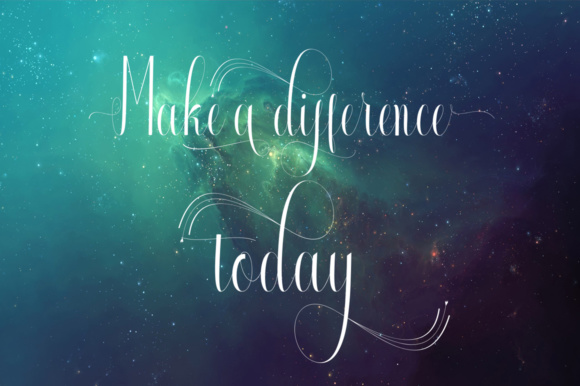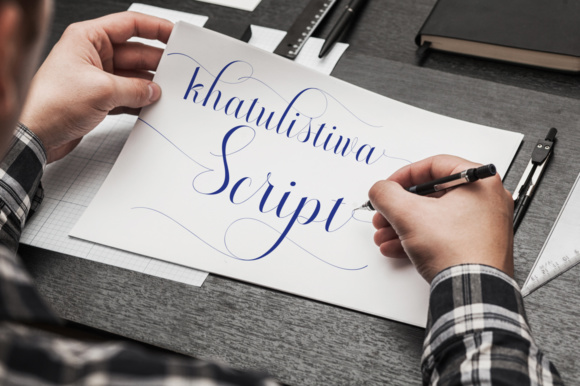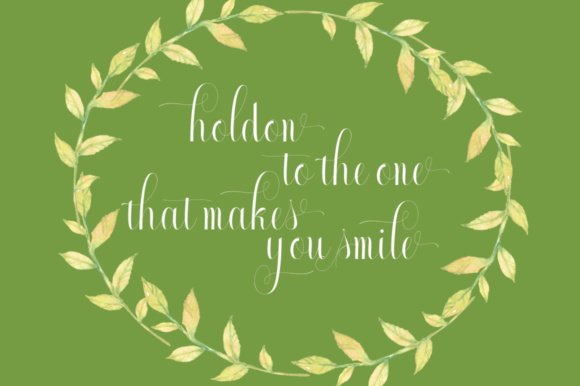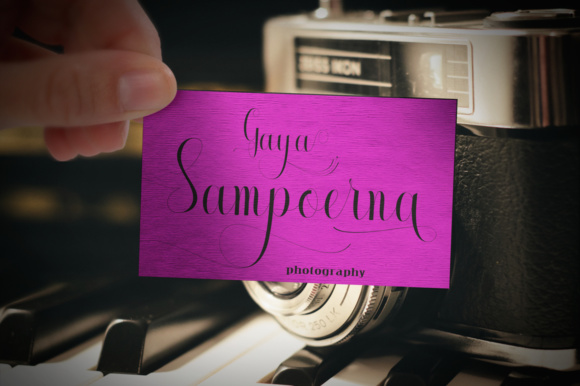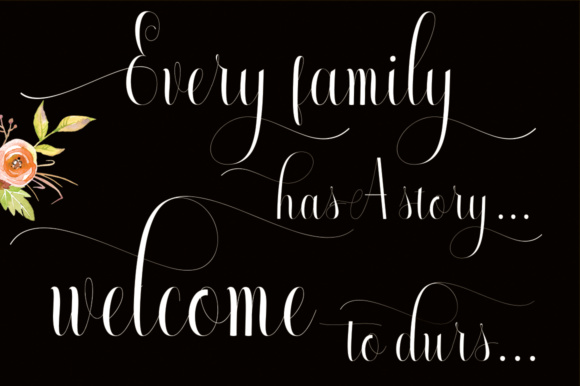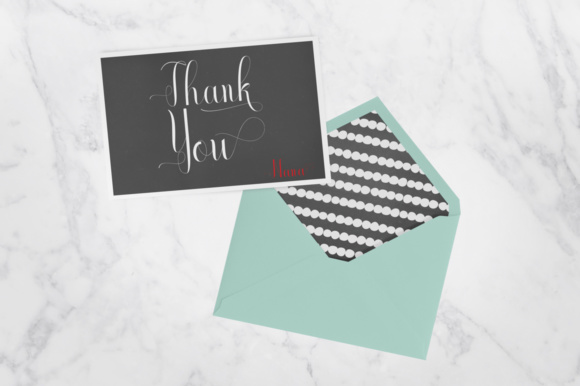
Wanitha Font
About Wanitha Font
Wanitha is a gorgeous, upright handwritten cursive font, ideal for use in headlines and displays. This font comes with a ton of alternates, and looks phenomenal in romantic projects.